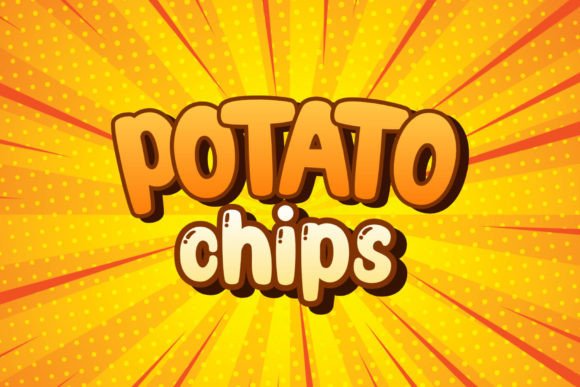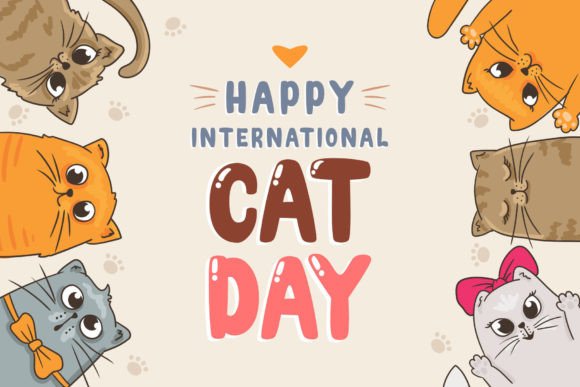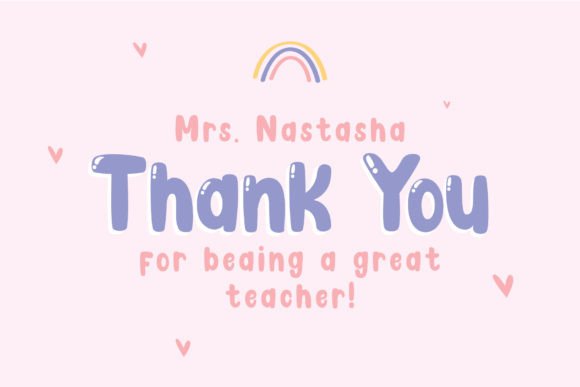
Introduction to Rainmaking Font
Have you ever stared at a blank canvas, feeling like a spark of creativity is just out of reach? That’s when the right design resource can make all the difference. For designers, finding the perfect font can be the key to unlocking a truly innovative project.
Enter the Rainmaking Font, a simple yet sophisticated handwritten duo that’s sure to elevate your creative project. With its regular and flat styles, ligatures, and alternates, this font offers unparalleled flexibility and options for designers. Whether you’re crafting logos, posters, or social media graphics, the Rainmaking Font adds a touch of style and professionalism that’s hard to resist.
Key Features of Rainmaking Font
- Unique, hand-drawn design with a creative and artistic feel, perfect for any design project.
- High-quality font with a transparent background, allowing for seamless integration with any design resource.
- Designed to be highly versatile, making it suitable for a variety of creative projects, from logos to signage and beyond.
- Resolution-independent, ensuring that the font remains crisp and clear at any size or resolution.
- Comes in a single weight, making it easy to use and customize for any design project.
Honest Review: Rainmaking Font
As a designer, I’m always on the lookout for high-quality design resources to elevate my creative projects. The Rainmaking Font has been a game-changer for me, and I’m excited to share my honest review with you.
- ✨ Unique and creative design style that adds a touch of whimsy to any project
- ✨ High-quality font that is crisp and clear, even at small sizes
- ✨ Transparent background makes it easy to customize and integrate into any design
- ⚠️ Limited character set, which may not be suitable for complex texts or lengthy content
- ⚠️ Some users may find the font too ornate or distracting, depending on the project’s tone and style
Overall, I’m thoroughly impressed with the Rainmaking Font. Its unique design and high-quality rendering make it a valuable addition to any designer’s toolkit. While it may have some limitations, I believe its benefits far outweigh its drawbacks. If you’re looking for a creative and versatile design resource, I highly recommend giving the Rainmaking Font a try.
Designing a Creative Project with Rainmaking Font
Rainmaking Font is a versatile and high-quality design resource that can elevate your creative projects. With its transparent background, this font is perfect for designers looking to add a touch of sophistication to their work.
Getting the Most Out of Rainmaking Font
To get the most out of Rainmaking Font, try experimenting with different font sizes, colors, and combinations to create unique and eye-catching designs.
Common Use Cases for Rainmaking Font
Rainmaking Font is perfect for:
Branding and logo design
Marketing materials, such as brochures and flyers
Presentations and documents
Web design and development
Alternatives to Rainmaking Font
Glacial Indifference Font
Glacial Indifference Font is a high-quality, creative project font perfect for designers who want a transparent background and a clean, elegant look. It’s ideal for use in design resources where a subtle, sophisticated font is needed.
Glacial Indifference Font compares to Rainmaking Font in its ability to provide a high-quality, transparent background, but it has a more subtle and elegant look that’s better suited for corporate or professional designs.
Quicksand Font
Quicksand Font is a modern, high-quality font that’s perfect for designers who want a clean and elegant look for their creative projects. It’s a great design resource for use in logos, headings, and body text.
Quicksand Font compares to Rainmaking Font in its modern and clean look, but it has a more rounded and friendly feel that’s better suited for use in casual or creative designs.